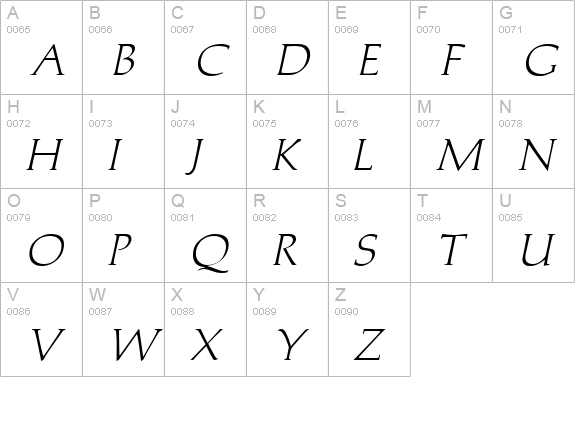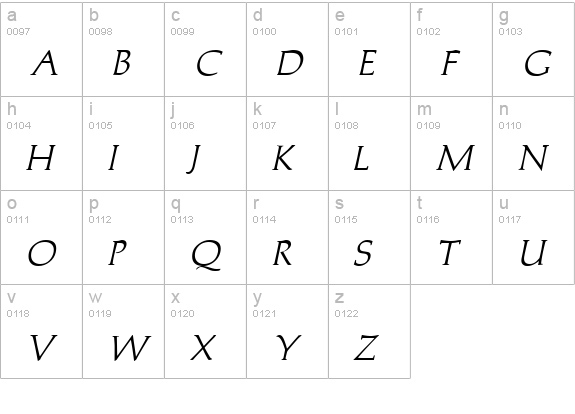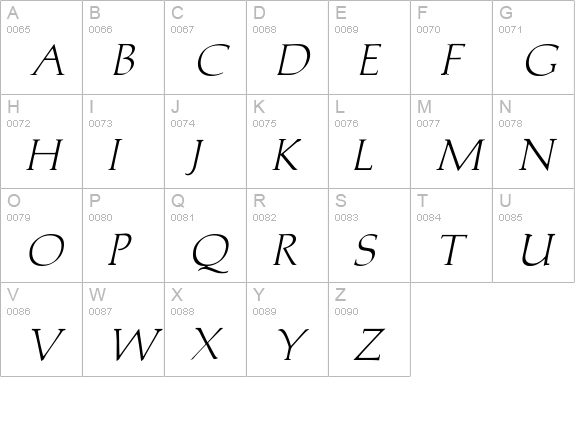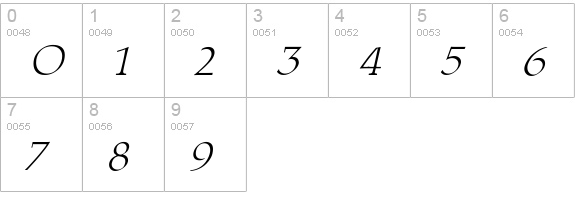
Trajan'sCaps Italic is a distinctive, italic variant in the Trajan'sCaps typeface family \xE2\x80\x94 well suited to design and typography projects.
Trajan'sCaps Italic font is a stunning and elegant typeface that exudes sophistication and classic appeal. It is a perfect blend of traditional and modern design elements, making it suitable for a wide range of projects. The italicized variant of Trajan'sCaps adds a touch of flair and style, further elevating its visual impact. This font features beautifully crafted letterforms with delicate curves and exquisite detailing. Each character is meticulously designed to ensure legibility and aesthetic harmony, making it ideal for both display purposes and longer blocks of text. Trajan'sCaps Italic font possesses a timeless quality that will never go out of style, making it a versatile choice for various design needs. One of the most remarkable aspects of Trajan'sCaps Italic font is that it is available for free download at FontsMarket.com. This means that designers, enthusiasts, and anyone in need of a visually captivating typeface can easily access and utilize this font without any cost. It's a testament to the generosity of the font's creators, who believe in promoting creativity and accessibility. Whether you are working on a graphic design project, creating a logo, designing a website, or crafting invitations, Trajan'sCaps Italic font will undoubtedly elevate your work to new heights. Its timeless elegance combined with the convenience of being freely available makes it an invaluable addition to any designer's toolkit. So, don't miss out on this incredible opportunity to enhance your creations with the unmatched beauty of Trajan'sCaps Italic font, and start downloading it today at FontsMarket.com.